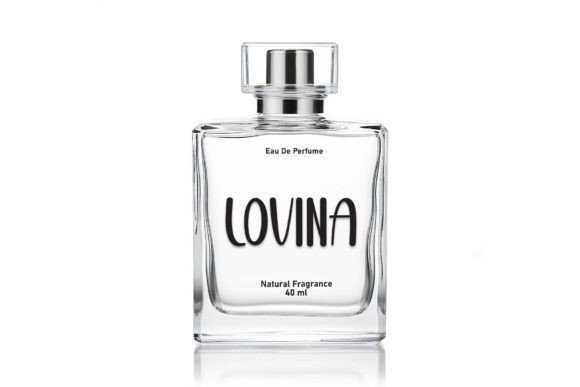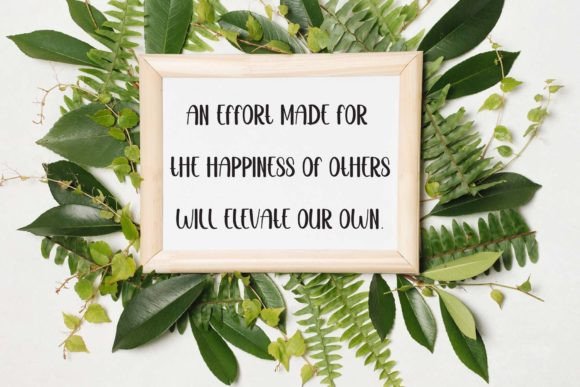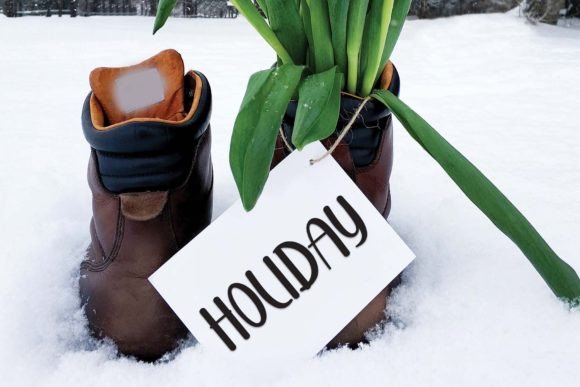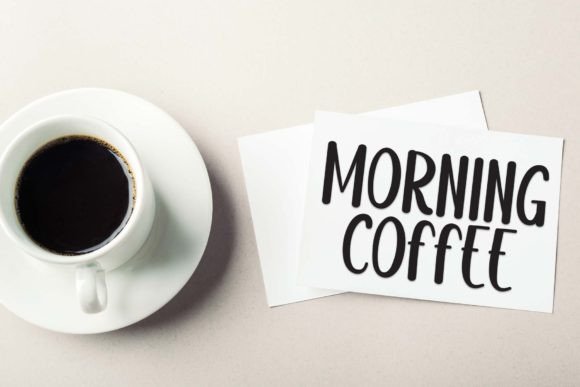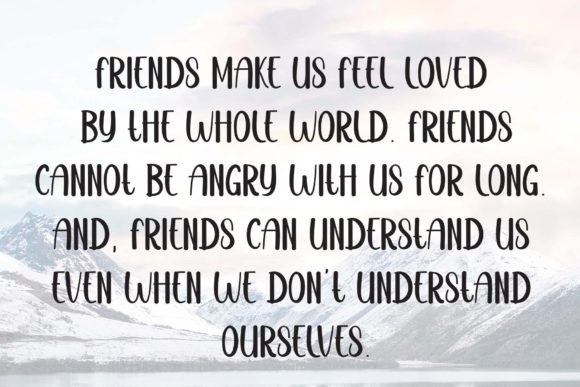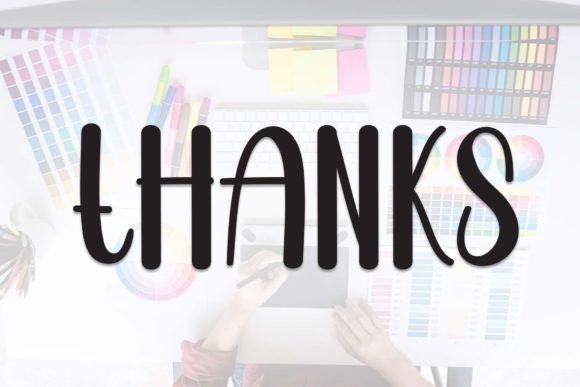
Adding a Touch of Personality to Your Designs
You’ve finally landed your dream project – a wedding invitation for your best friend, or a birthday card for your little sibling. You’re bursting with excitement to start designing, but the blank page stares back at you, daring you to bring it to life. That’s when you remember the secret to making your designs truly special: the perfect font.
Enter Designer Font – a sweet and friendly handwritten font that’s just begging to be used. With its cute and fun vibe, this font is perfect for adding a personal touch to any design. Whether you’re writing a wedding invitation, a birthday card, or just a simple note, Designer Font is sure to bring a smile to the recipient’s face.
As a designer, you know that the right font can make all the difference in your project’s success. With Designer Font, you’ll be able to add a touch of personality to your designs that will set them apart from the rest.
Designer Font Key Features
- Unique characteristic: Designer Font features a customized set of ligatures, allowing for improved text flow and reduced clutter.
Designer Review: “Designer Font”
First of all, let me start by saying that “Designer Font” has some great features that make it stand out in the market. ✨ The font’s modern and sleek design is perfect for any contemporary branding project. The font is also highly customizable, allowing designers to adjust the font’s size, color, and style to fit their specific needs.
- ✨ Modern and sleek design
- ✨ Highly customizable
- ✨ Large character set
Overall, I would give “Designer Font” 4 out of 5 stars. While it has some limitations, its modern design and high level of customizability make it a great choice for designers looking for a versatile font. With a bit of tweaking to address the compatibility issues, I think this font could be a real game-changer in the design world.
Getting the Most Out of Designer Font
To get the most out of Designer Font, experiment with different font combinations, sizes, and styles. Use it to create visually appealing headings, titles, and body text. Also, consider pairing it with other design elements like images, colors, and graphics to create a cohesive look.
Designer Font is ideal for creating professional-looking documents, presentations, and graphics. Use it for:
- Business cards and brochures
- Marketing materials and advertisements
- Web design and development
- Editorial and publishing
Alternative Font Options for Designers
Montserrat is a modern sans-serif font perfect for digital design. It’s clean, geometric, and highly legible, making it ideal for body text, headings, and titles. Montserrat is a great alternative to Designer Font when you need a more minimalist and versatile font for your design project.
Comparison to Designer Font: Montserrat is more versatile and modern, while Designer Font is more classic and traditional. Montserrat is a better choice for digital design, while Designer Font is suitable for print materials.
Lato is a sans-serif font that’s highly customizable and suitable for both digital and print design. It’s a great choice for body text, headings, and titles, and it’s highly legible even at small font sizes. Lato is a great alternative to Designer Font when you need a font that’s highly adaptable to different design contexts.